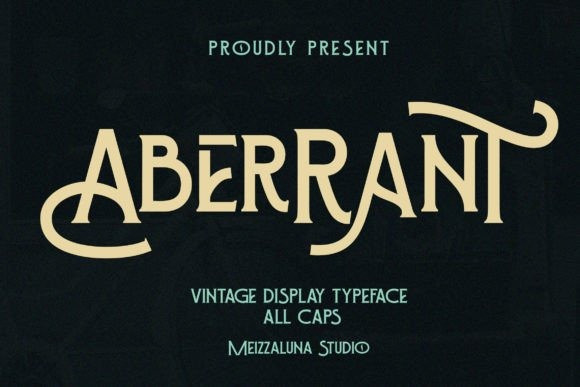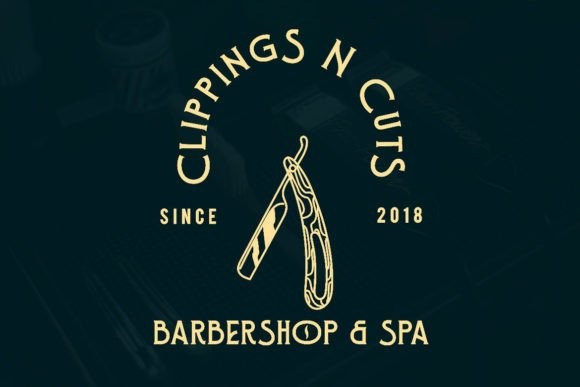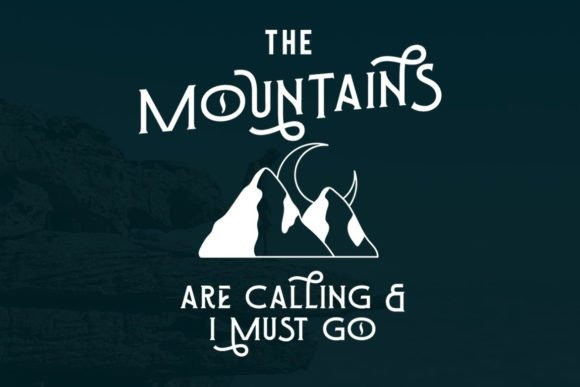
Aberrant Font
Aberrant is a unique and stylish serif font. With its incredibly vintage aesthetic, this font is suitable for all your creative projects.